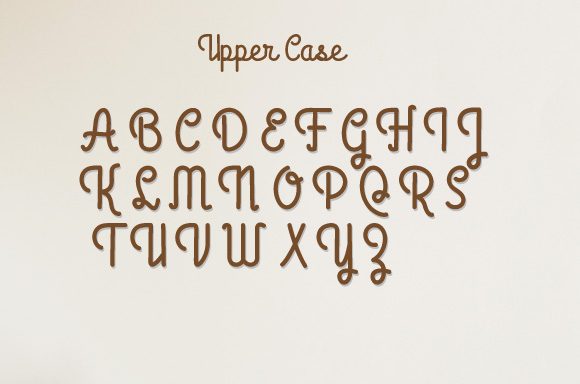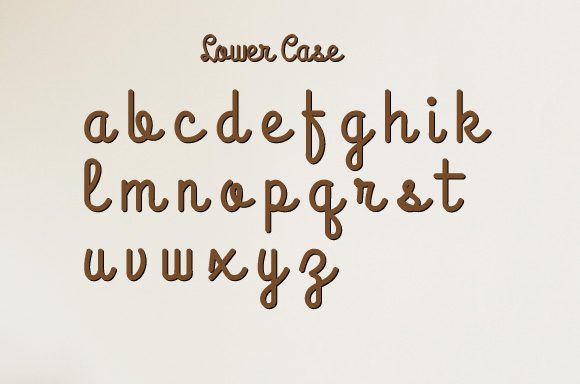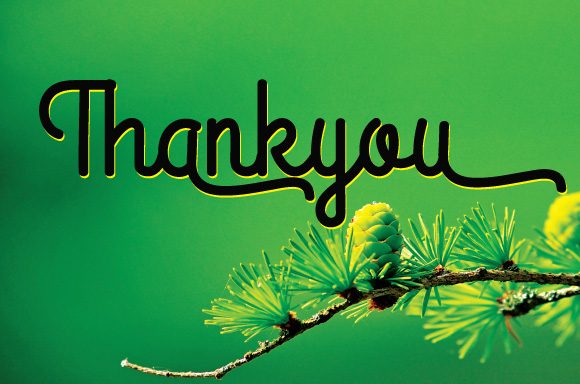
The Elegance of Black Script Letter: A Designer’s Delight
I’ll never forget the time I was working on a wedding invitation project, and my client asked for a font that was “elegant, yet playful.” I scoured the internet, tried out dozens of fonts, but nothing seemed quite right. That was until I stumbled upon Black Script Letter. ✨ This beautiful, delicate font has been a game-changer for me, and I’m excited to share its magic with you.
• ✨ Elegant and flowing: Black Script Letter has a way of making any design look sophisticated and refined.
• ✅ Well-balanced characters: Each letter is carefully crafted to ensure that the font looks great in any context.
• 🌈 Versatile: Whether you’re working on a wedding invitation, a branding project, or a craft tutorial, Black Script Letter fits right in.
While Black Script Letter is an amazing font, it’s not perfect. ⚠️ Here are a few things to keep in mind:
• 🤔 Legibility at small sizes: Like many script fonts, Black Script Letter can be a bit tricky to read at very small sizes. Make sure to test it out before committing to a particular design.
• ⚠️ Limited use of bold weights: If you need a bold, eye-catching font, Black Script Letter might not be the best choice. However, its regular weight is perfect for most design projects.
One of the best things about Black Script Letter is its support for OpenType features and glyphs. Here are a few tips for getting the most out of these features:
• Stylistic alternates: Experiment with different stylistic alternates to add some personality to your text.
• Swashes and flourishes: Add some extra flair to your design with swashes and flourishes.
• Ligatures: Use ligatures to create a more natural, flowing look.
A Brief Backstory: The Inspiration Behind Black Script Letter
According to the font’s creators, Black Script Letter was inspired by traditional calligraphy and hand-lettering techniques. The goal was to create a font that was both elegant and accessible, perfect for designers and non-designers alike. While we can’t know for sure, it’s clear that the creators succeeded in crafting a truly special font.
Q: Is Black Script Letter suitable for body text?
A: While Black Script Letter is beautiful, it’s best used for headings or titles. For body text, you might want to choose a more legible font.